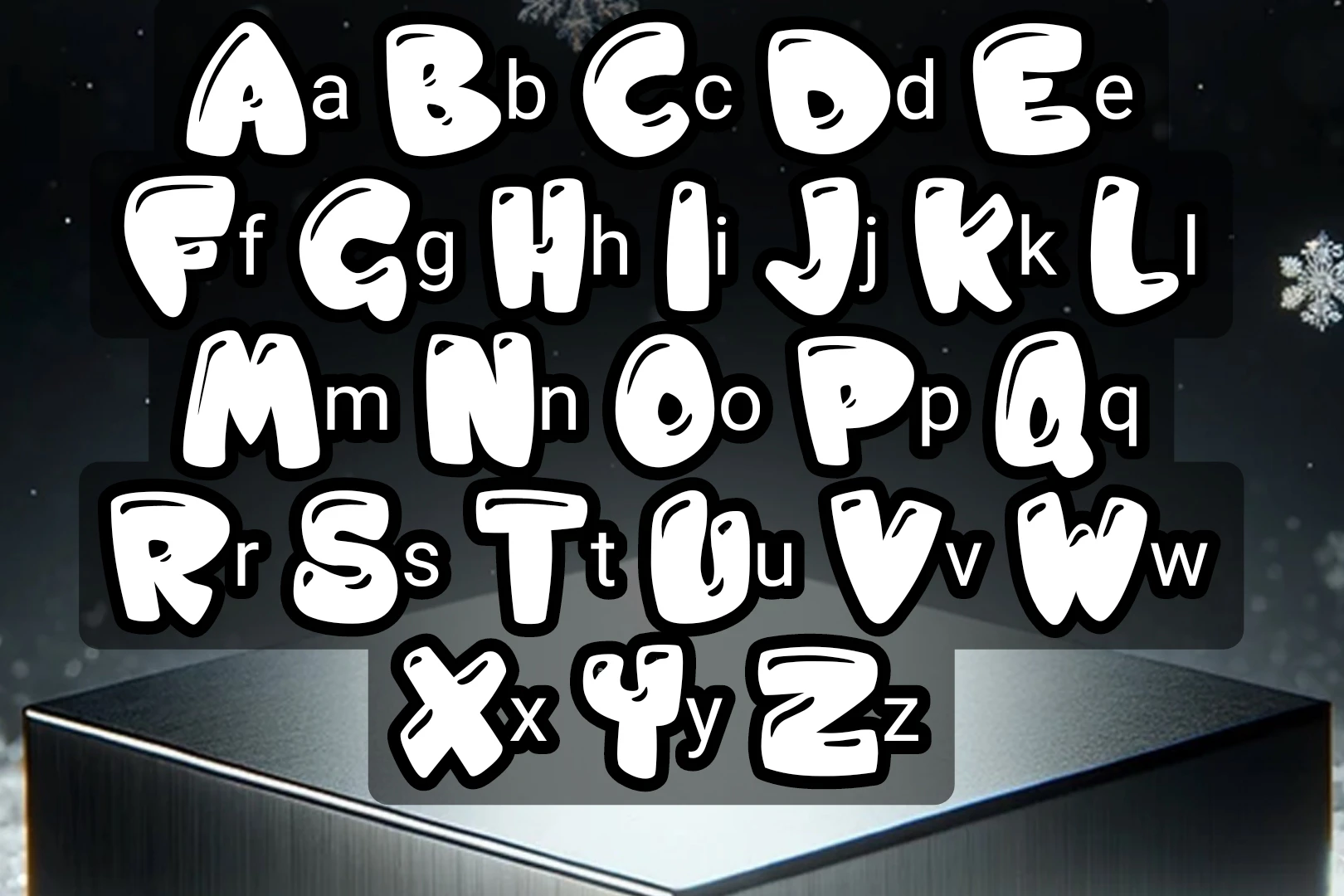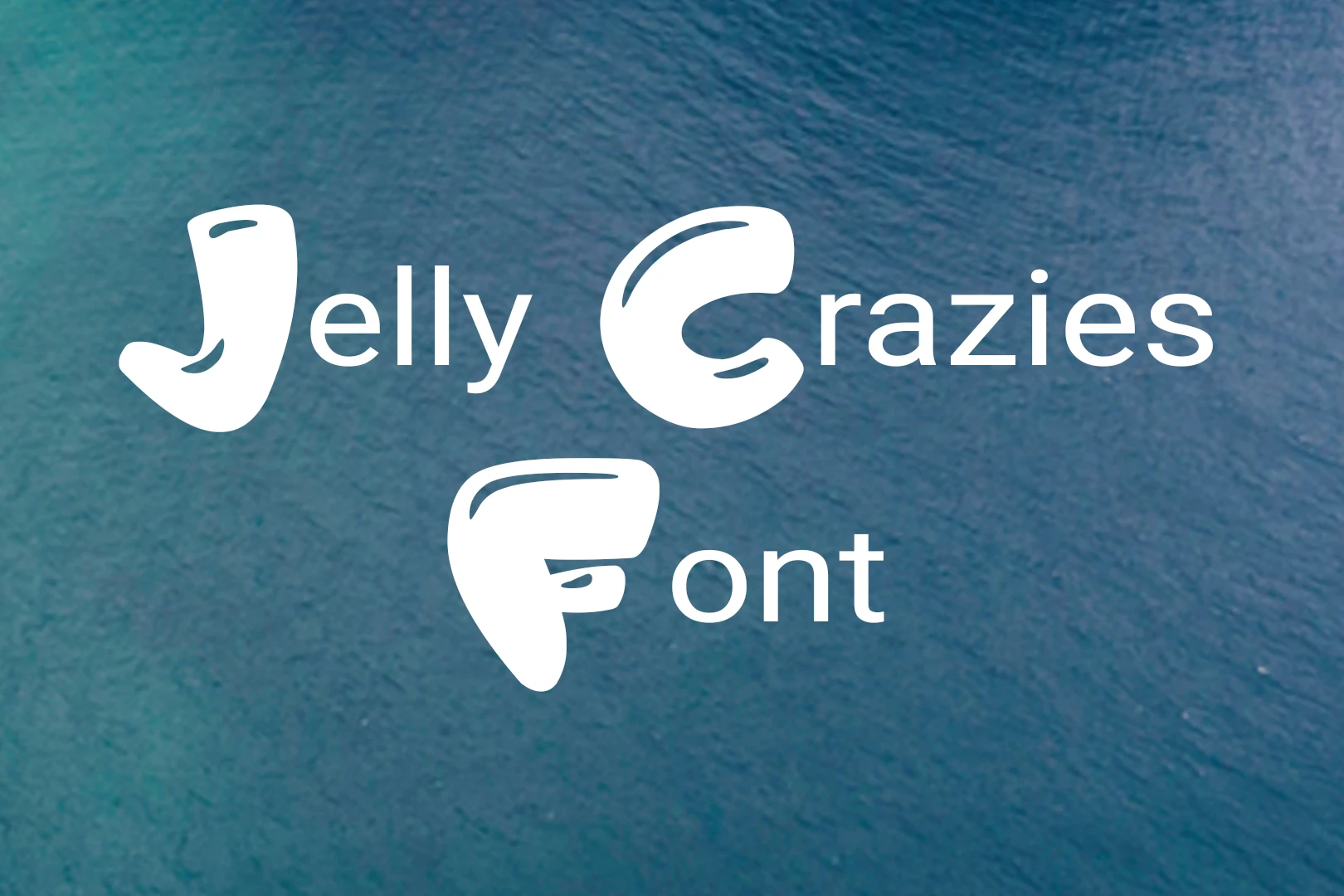
Jelly Crazies Font is a captivating font designed by Imagex, seamlessly nestled within the vibrant and dynamic Cartoon Texture font family. This font boasts a unique and whimsical personality that sets it apart, making it an ideal choice for projects seeking a playful and lighthearted touch. Imagex, known for its innovative designs, crafted it to infuse creativity and charm into various typographic endeavors.
Jelly Crazies font finds its stride in a myriad of creative applications. From children’s book covers to eye-catching posters, this font injects a dose of fun into any project. Its quirky and animated style adds a touch of personality to branding, making it suitable for businesses looking to convey a friendly and approachable image. Web designers can leverage it to create visually engaging headings and buttons, ensuring a memorable online presence.
Jelly Crazies, with its charming and playful design, proves versatile across a spectrum of creative applications. From enriching the world of children’s literature and educational materials to infusing a burst of energy into event branding, invitations, and social media graphics, this font adds a distinctive touch. Its animated appearance finds a natural fit in multimedia projects such as animated videos and presentations, elevating the visual appeal with its dynamic flair.
It is equally at home on product packaging and labels, contributing a friendly and approachable identity. Whether gracing blog headings, themed party decor, or personal stationery, this font’s whimsical charm adds character and memorability. Perfect for logo design and personal branding, this font is not only a creative tool but a delightful choice for a broad range of design endeavors, effortlessly enhancing the overall aesthetic with its lively and expressive demeanor.
Jelly Crazies is part of the broader Cartoon Texture font family, encompassing a range of fonts designed to bring a playful and animated aesthetic to typographic projects.